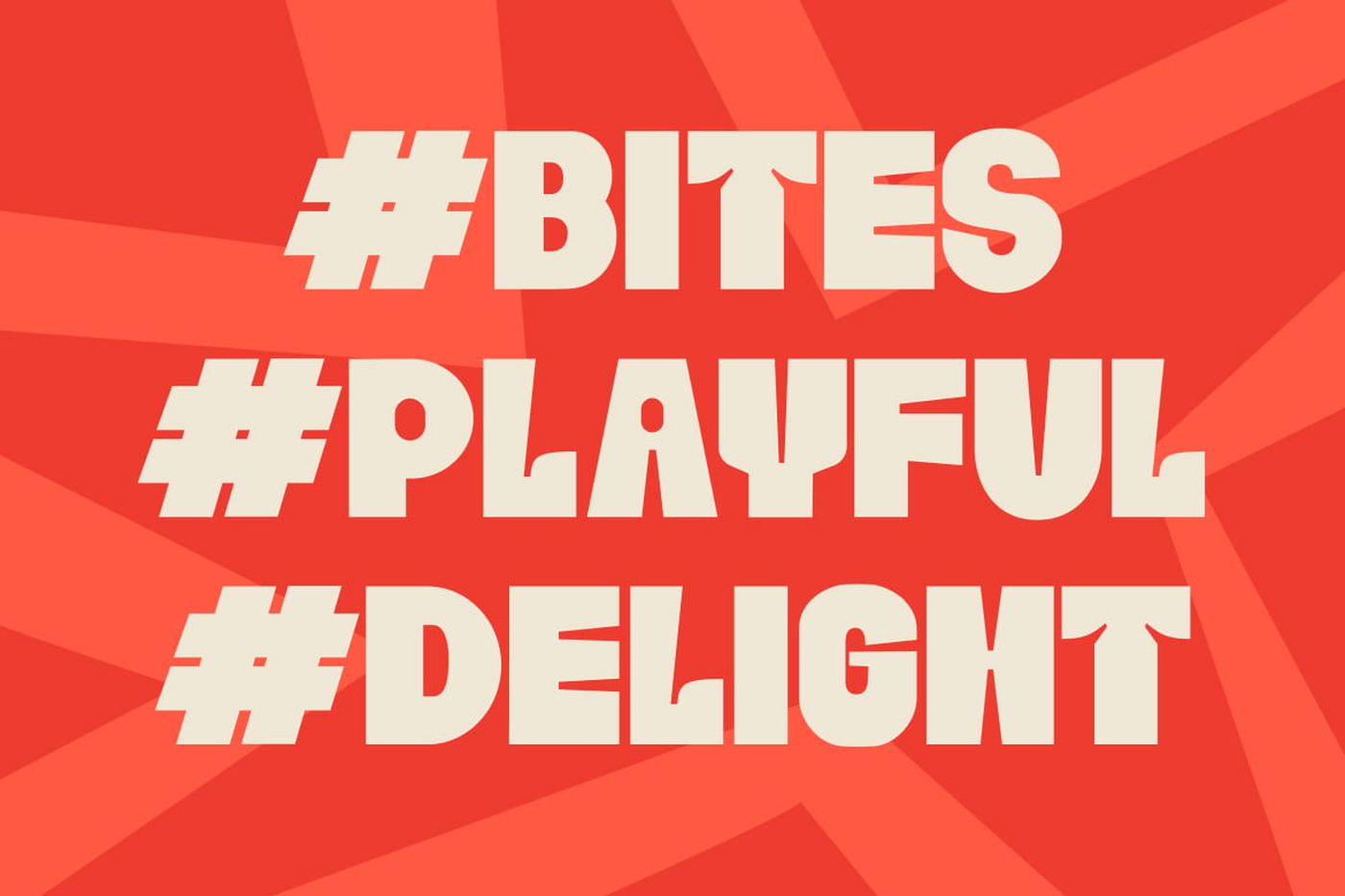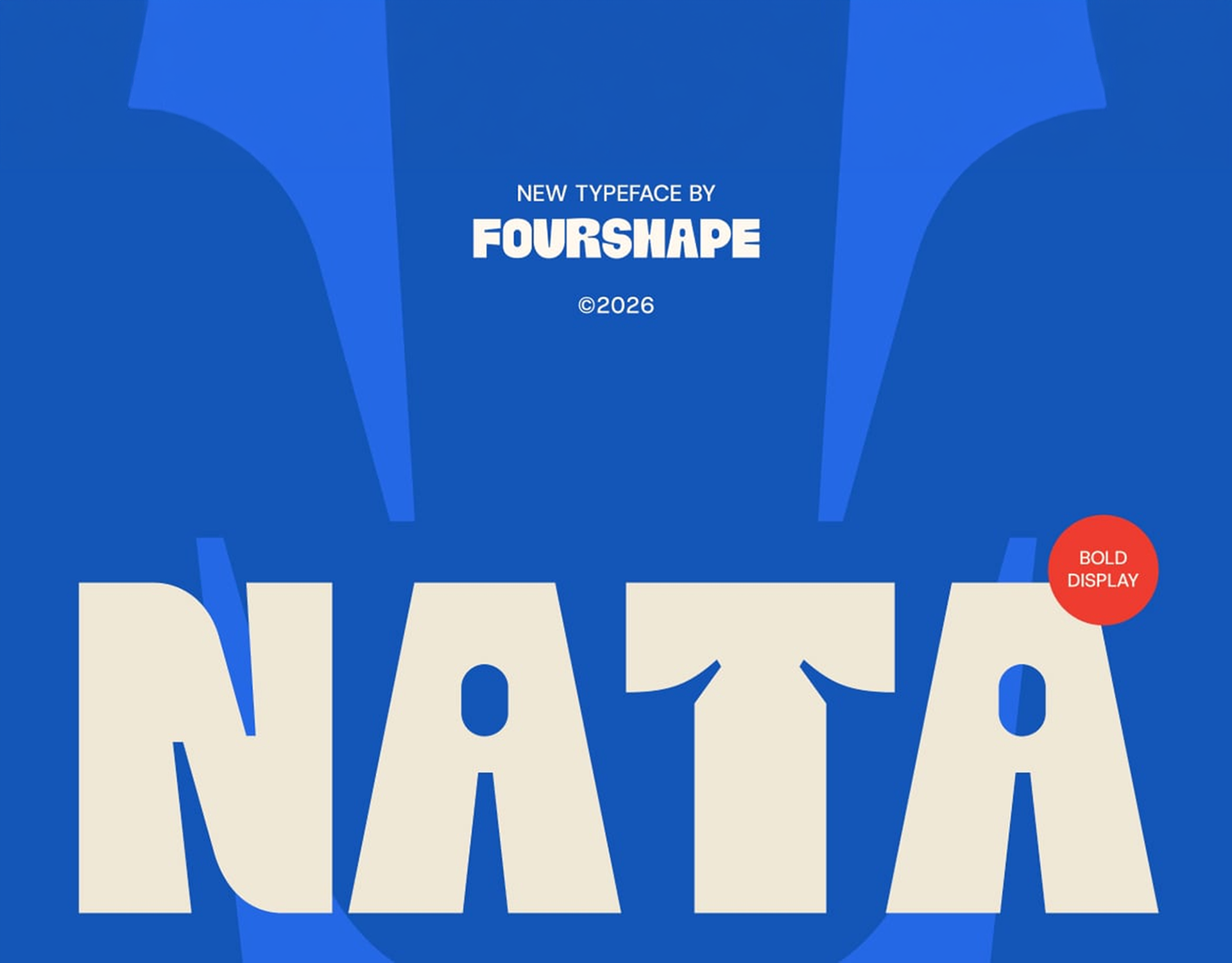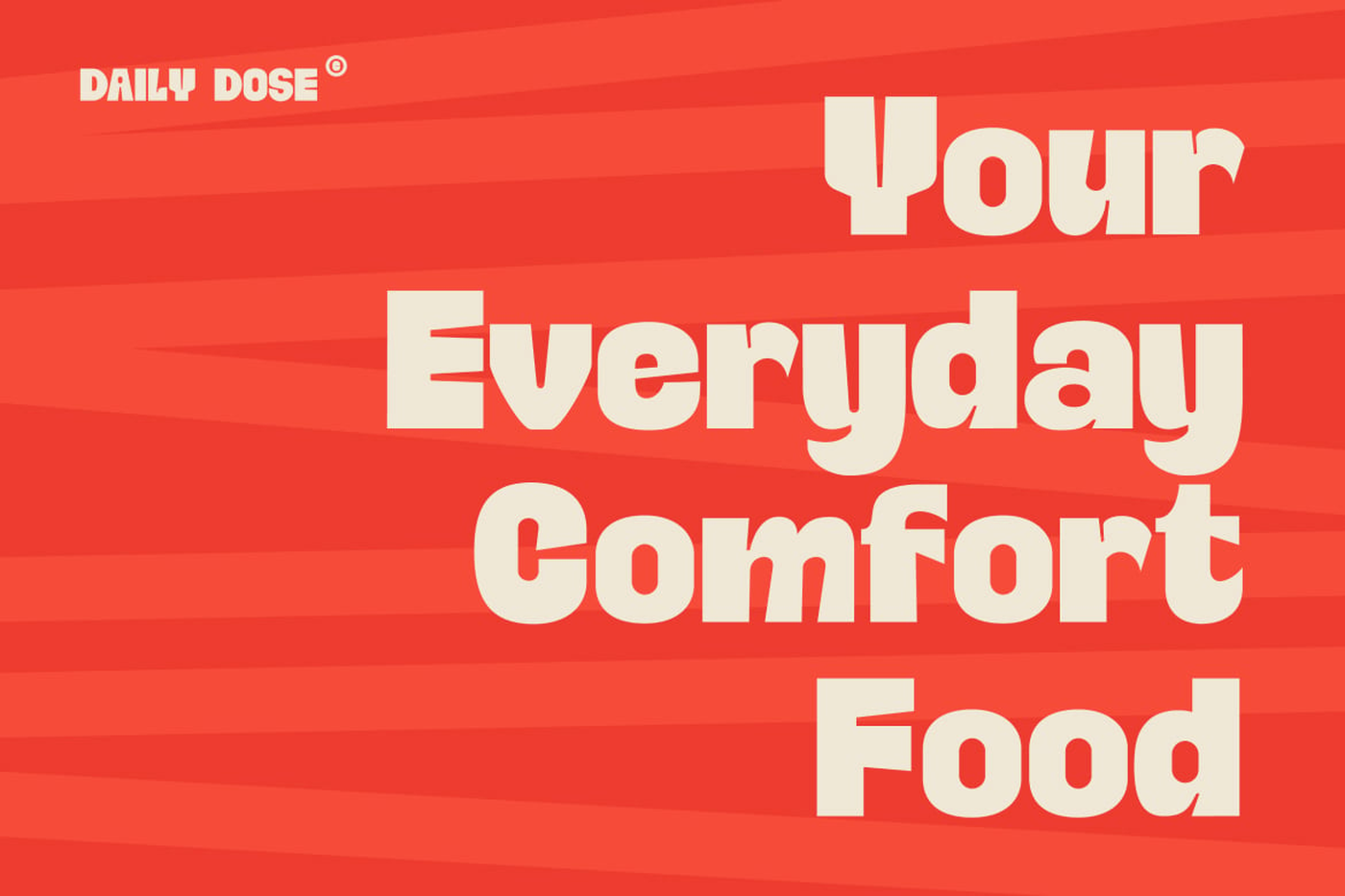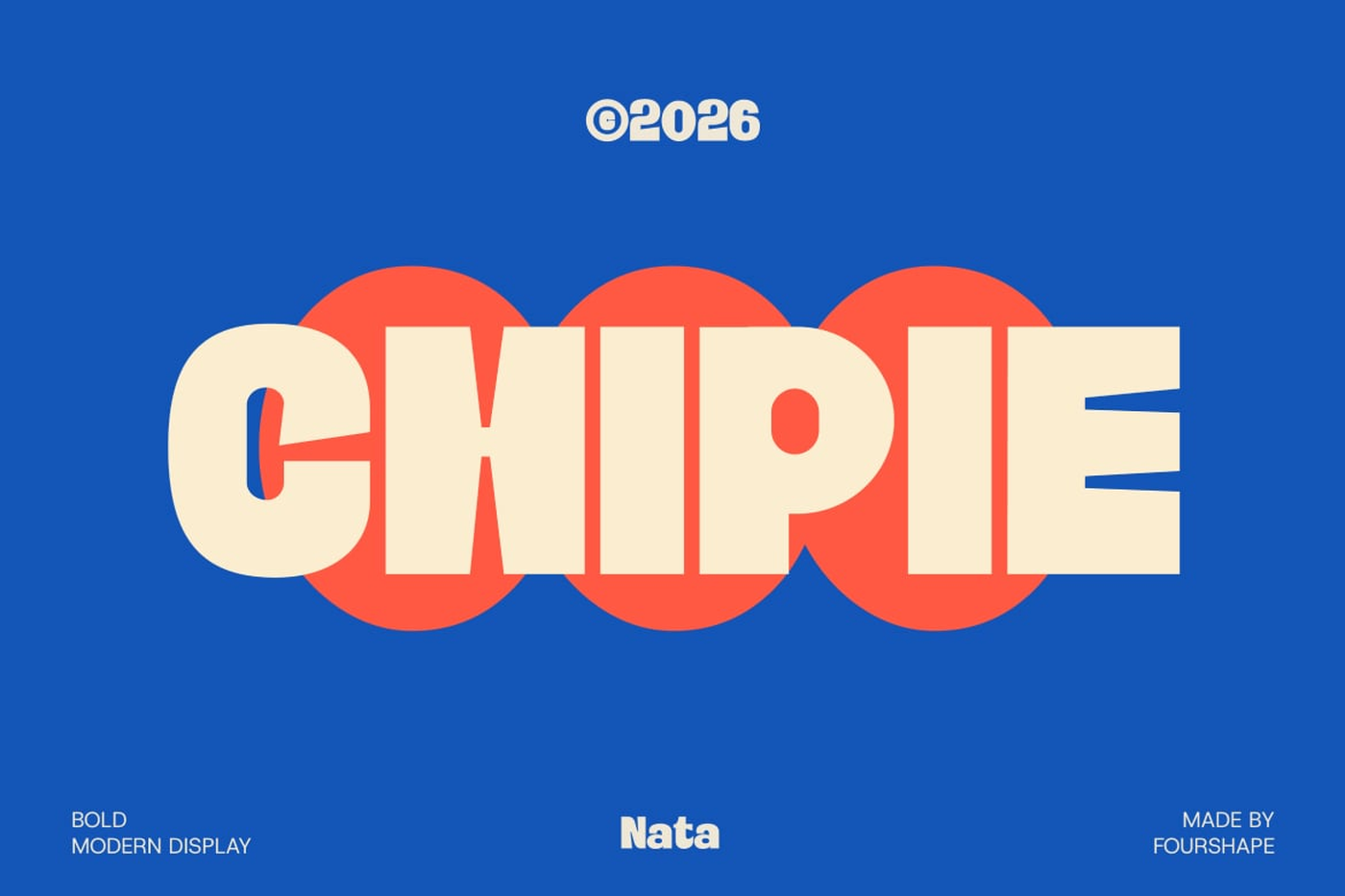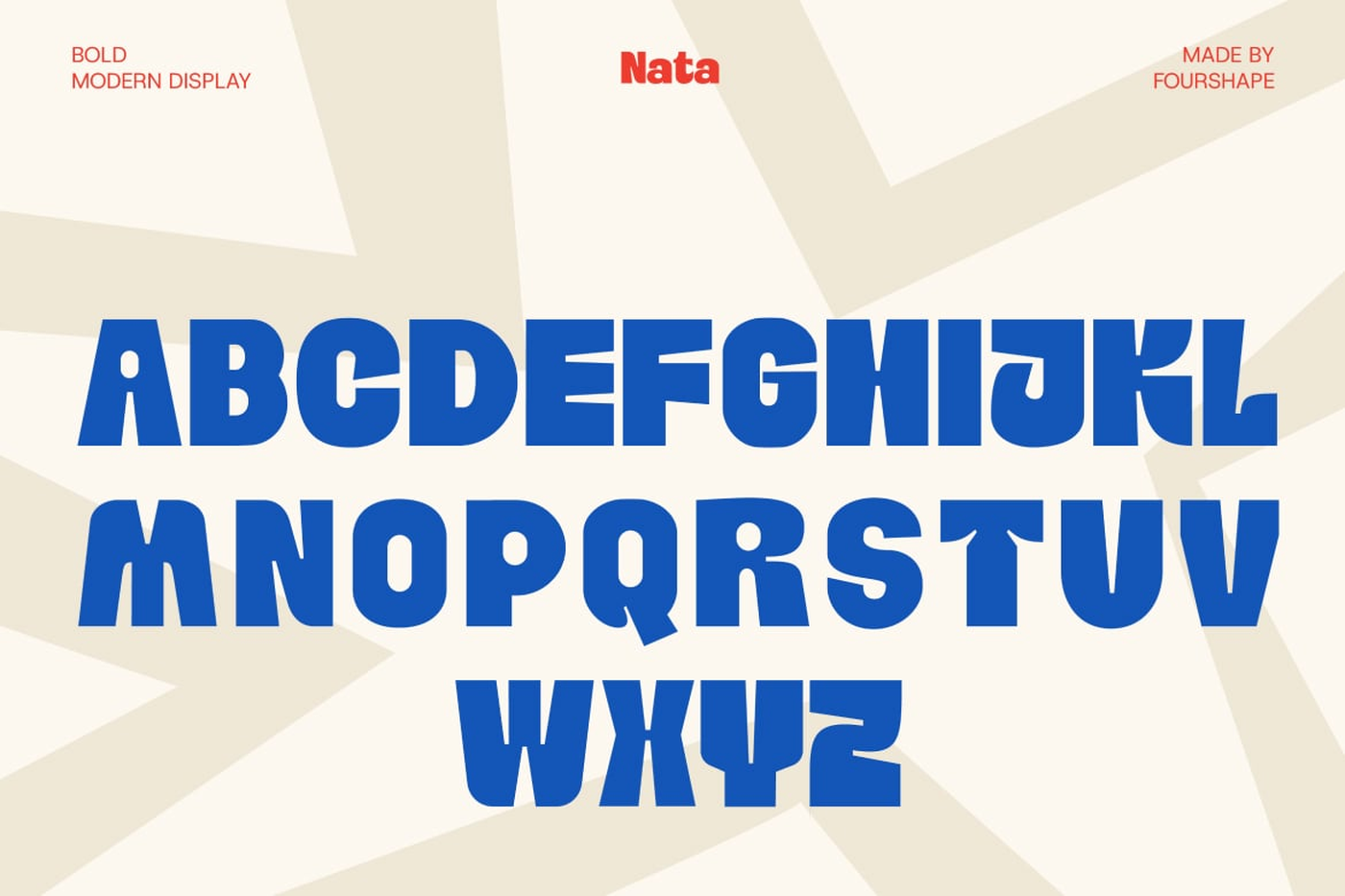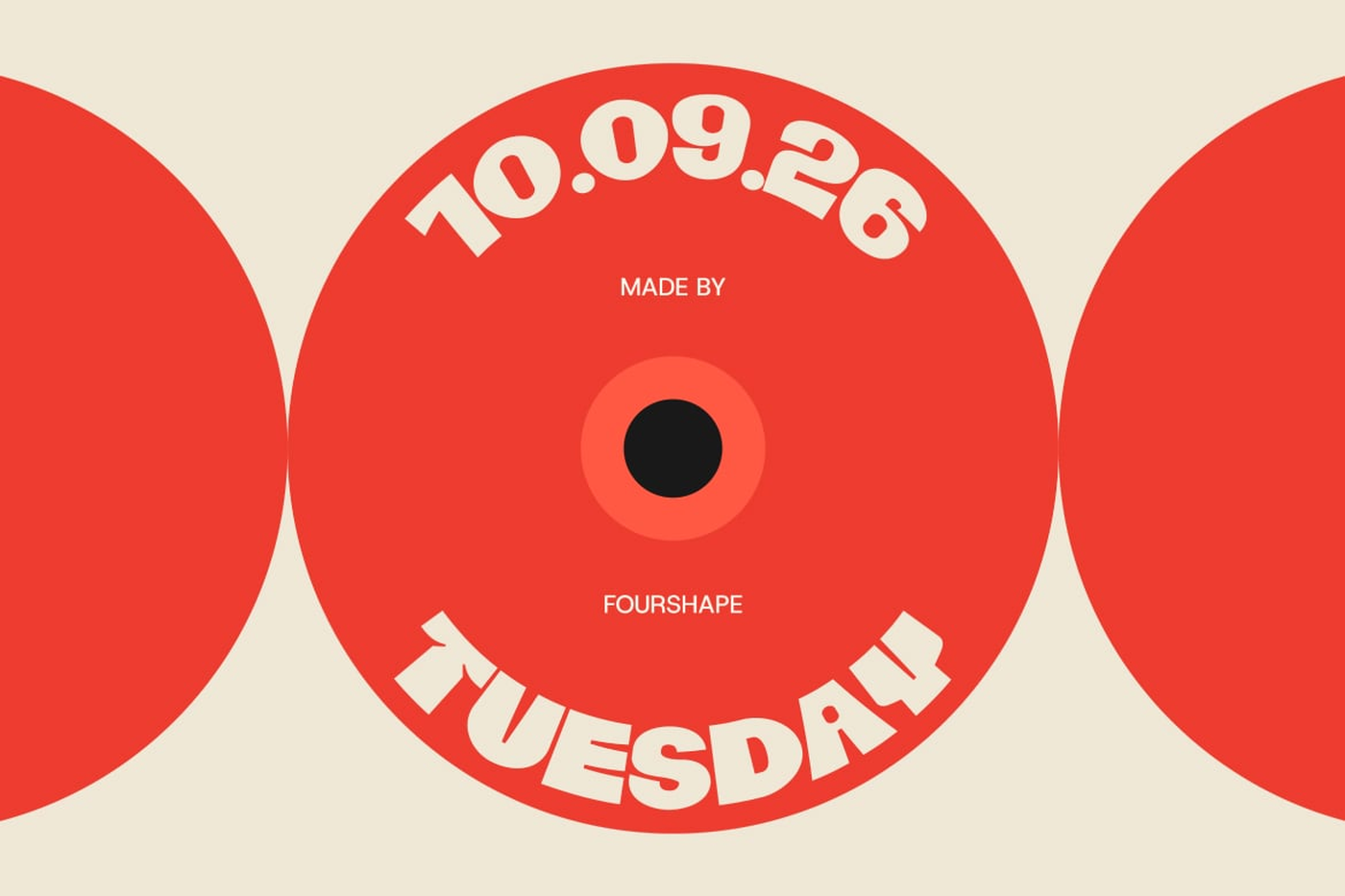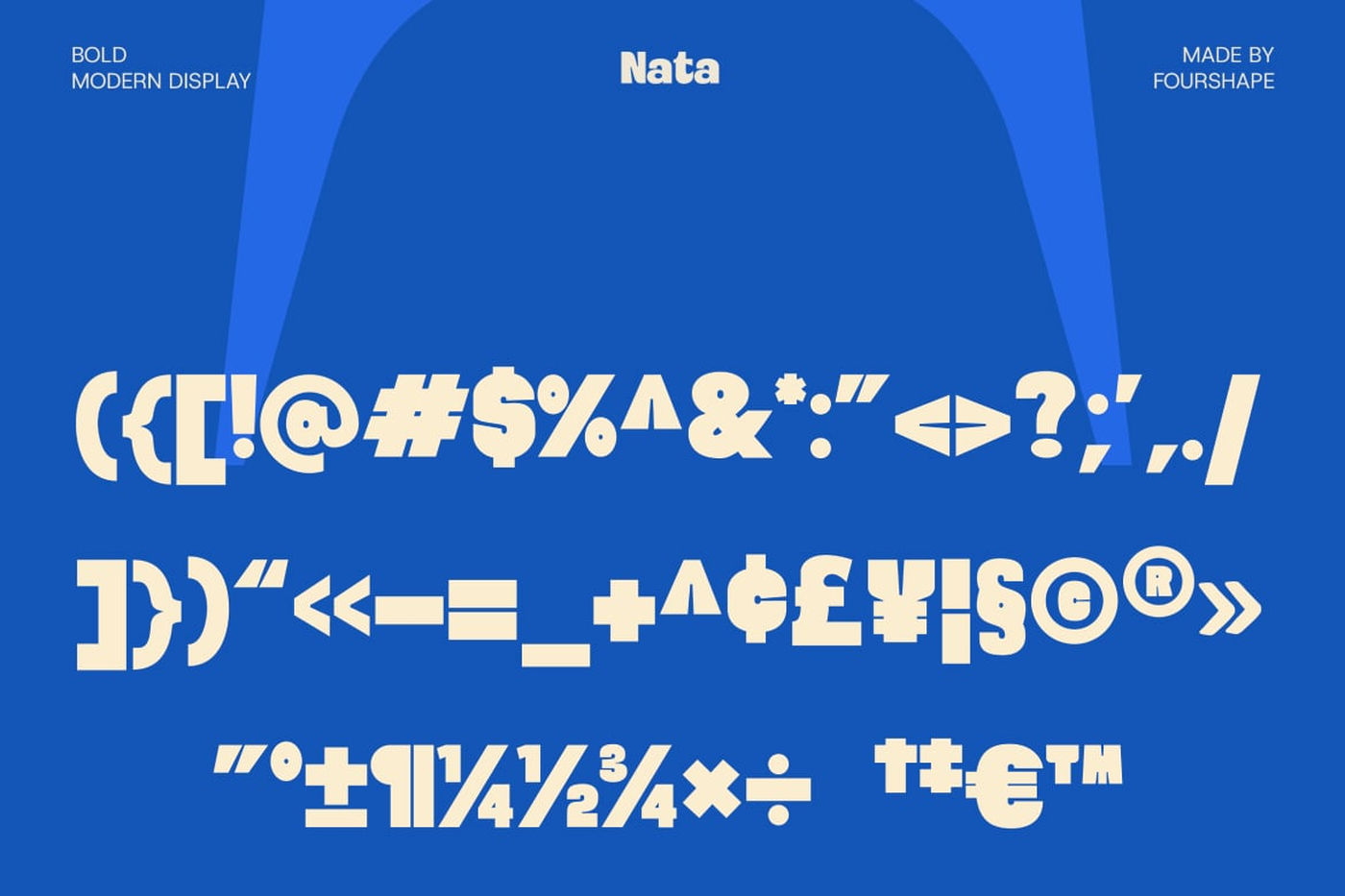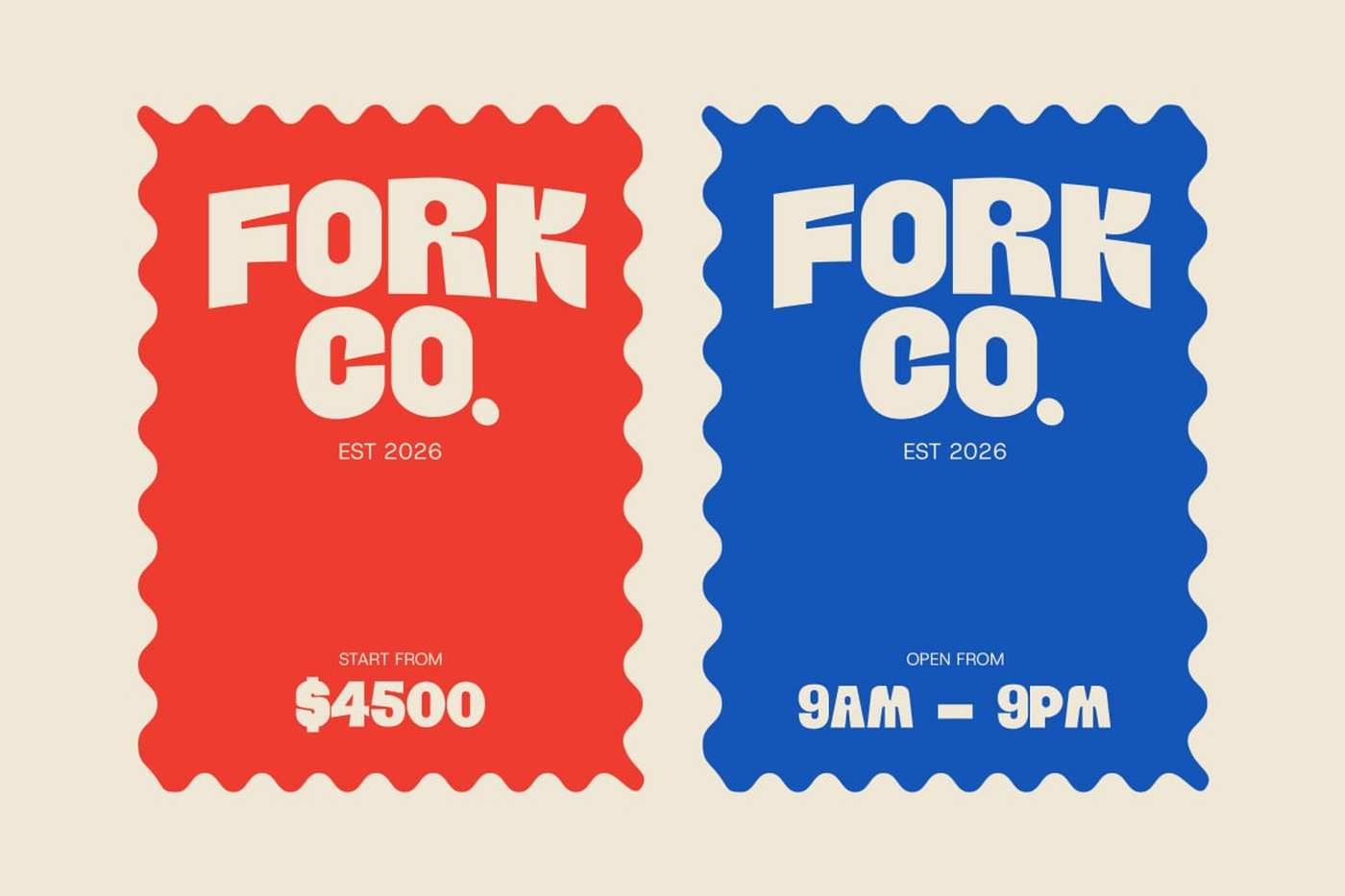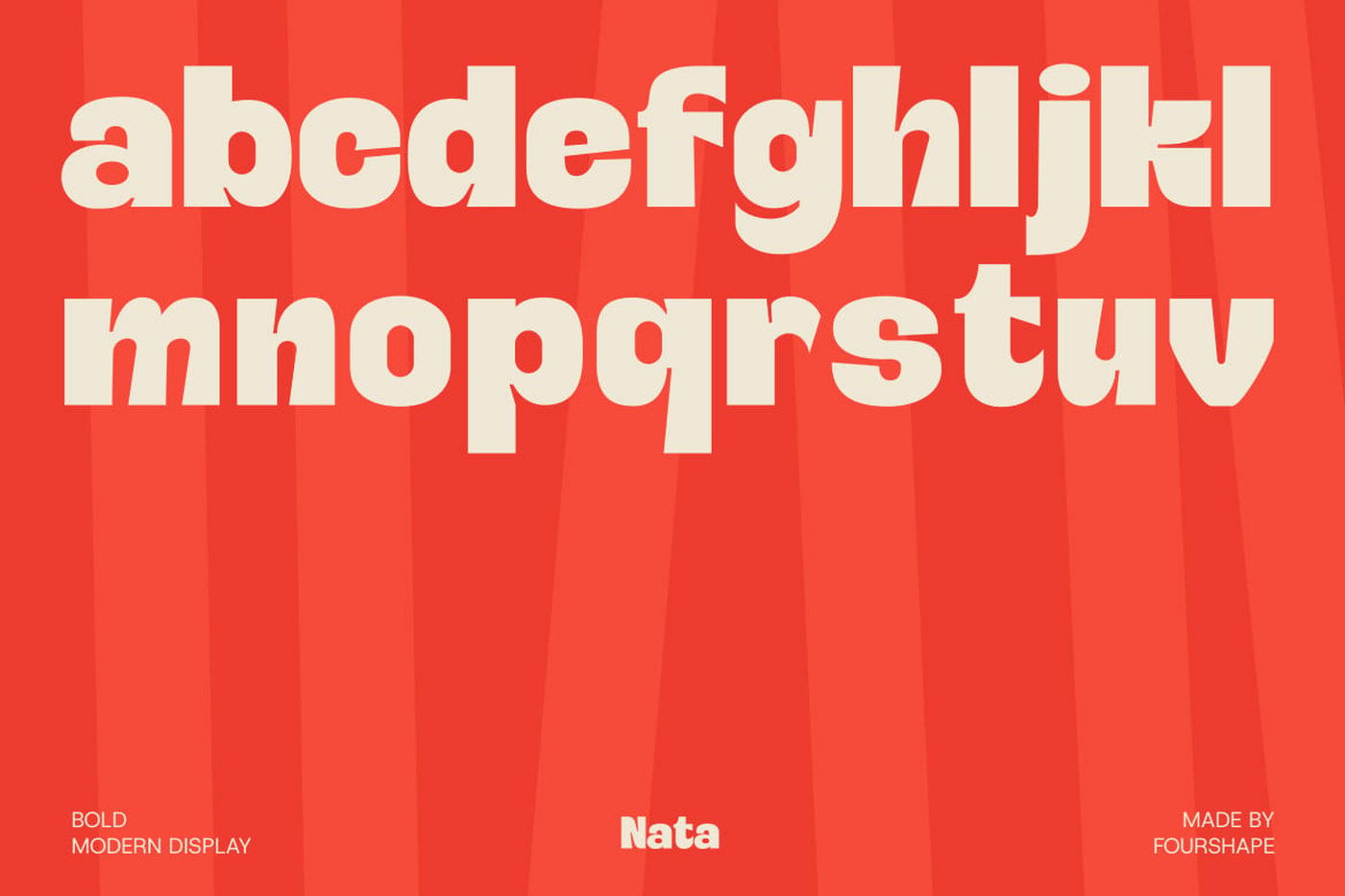
Nata - Bold Display Font
Nata is a modern display font designed with strong geometric shapes and confident character. Its solid structure and distinctive letterforms create a powerful visual presence, making it perfect for eye-catching headlines and impactful branding.
Designer: Fourshape Studio
Font: Nata